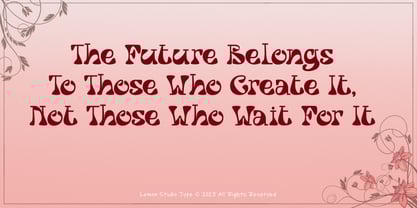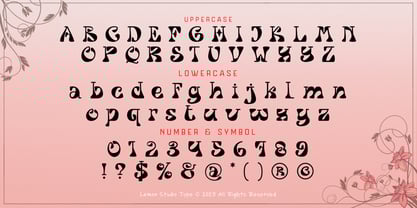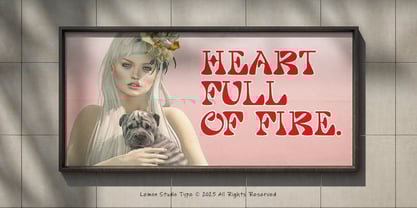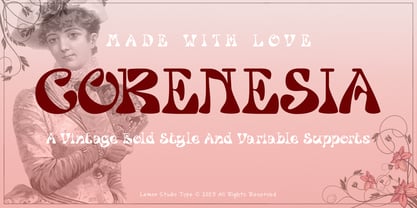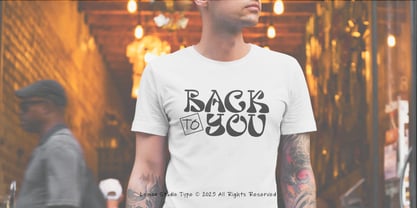
Corenesia
by Lemon Studio Type
The Corenesia Font Family was designed by Herpin Maulana and published by Lemon Studio Type. Corenesia contains 1 styles.
Step into the groove with CORENESIA, a bold display typeface that embodies the vibrant energy of the psychedelic era. Its fluid curves and groovy letterforms infuse a playful, artistic rhythm into any design, making it ideal for posters, branding, album covers, packaging, or social media visuals that require a striking statement. Designed to capture the spirit of freedom and creativity, this typeface blends nostalgic 70s charm with a modern edge. Each letter dances with character, ensuring your message stands out. Unleash your creativity and let your design shine with CORENESIA — a font that celebrates boldness, artistry, and the colorful essence of retro design.
Designers: Herpin Maulana
Publisher: Lemon Studio Type
Foundry: Lemon Studio Type
Design Owner: Lemon Studio Type
Corenesia